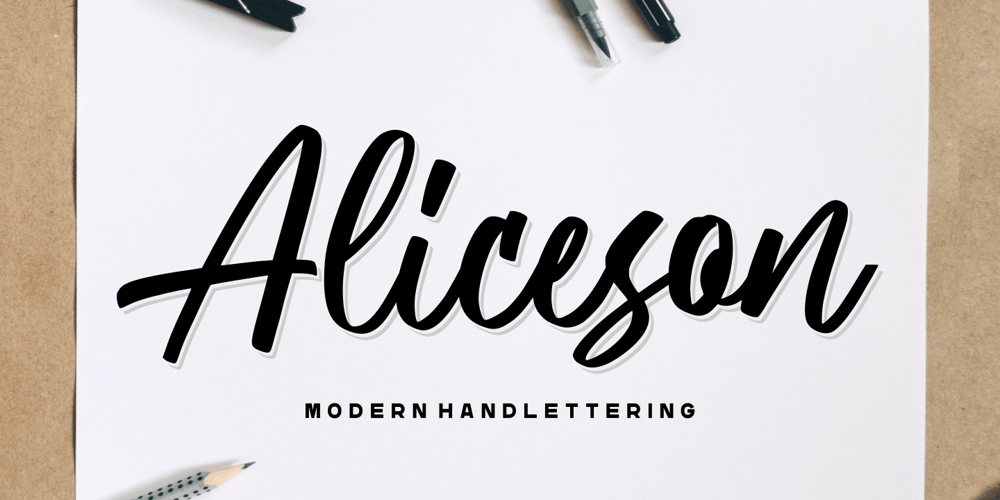
Aliceson
Aliceson font
Aliceson Font Family was designed by Good Java and published by Good Java Studio. Aliceson contains 1 styles and family package options. Aliceson – Modern HandletteringAliceson is the perfect font for all your handlettering designs. The main font file is equipped with ordinary characters. Everything is made with the funny brush. So you can be sure they will work well together! It is suitable for you to use in making t-shirt design, quote, label, packaging, logo type, or long writing. Because we have compiled kerning and matrices that are tailored to your needs.